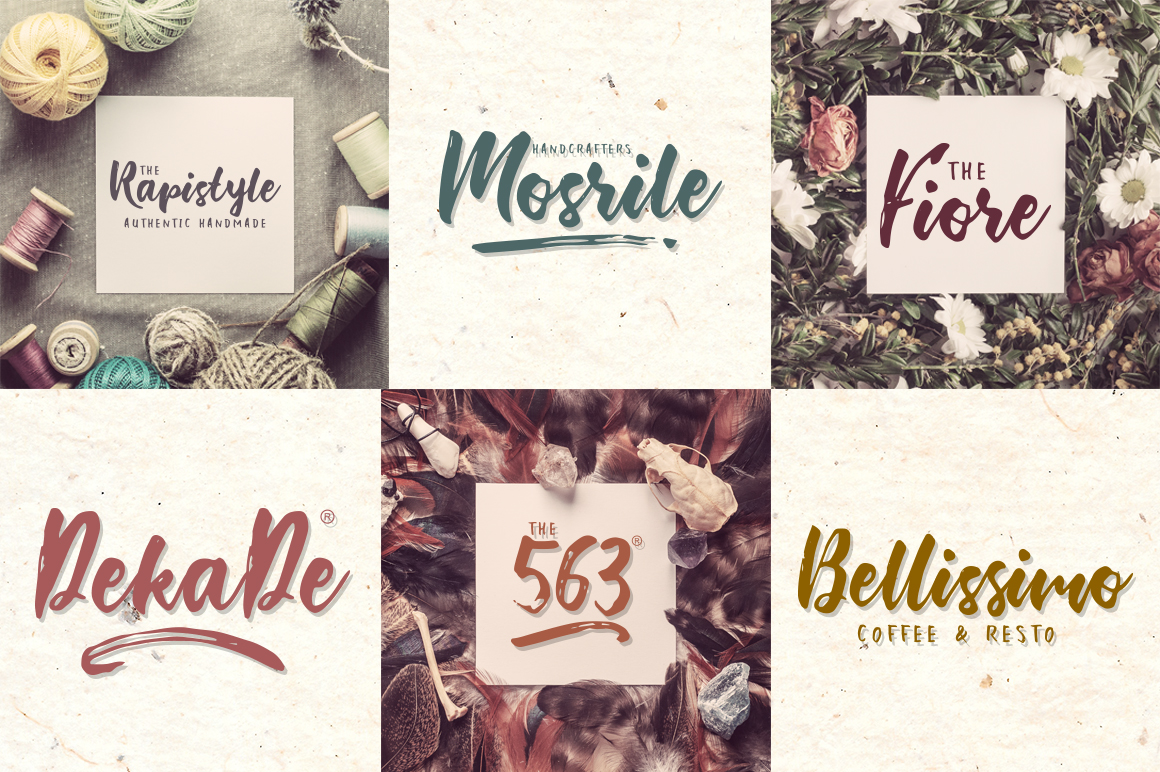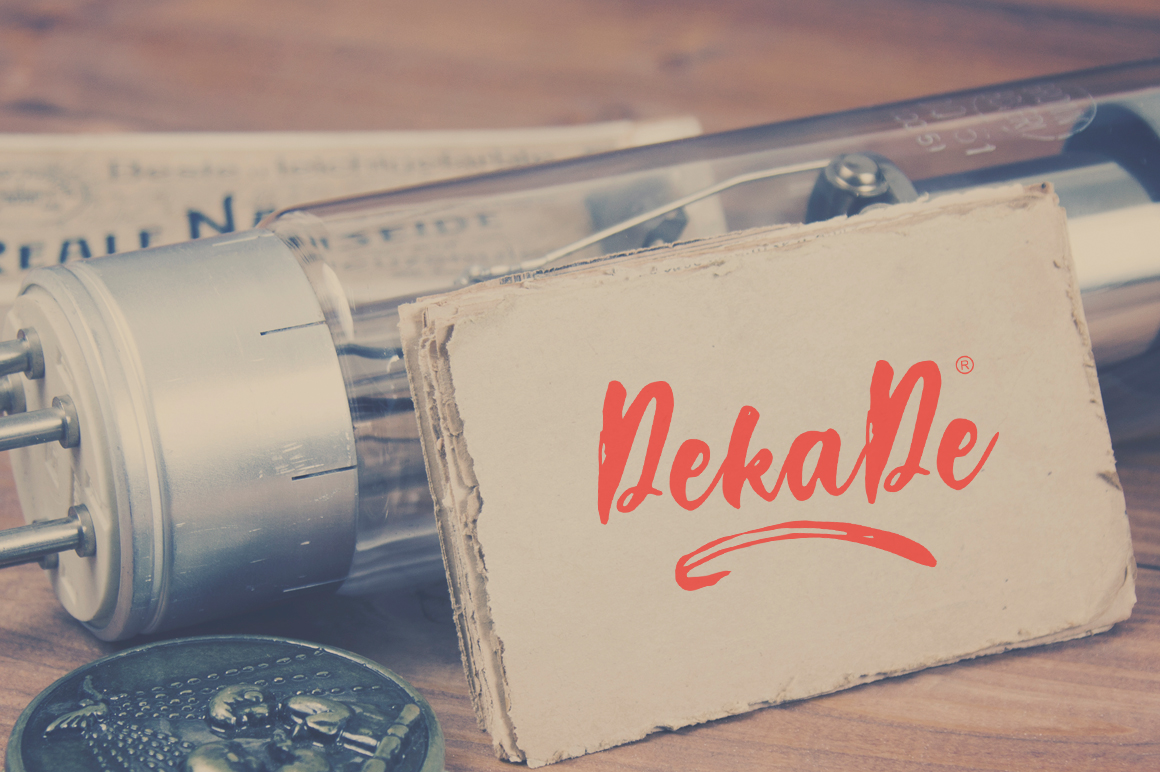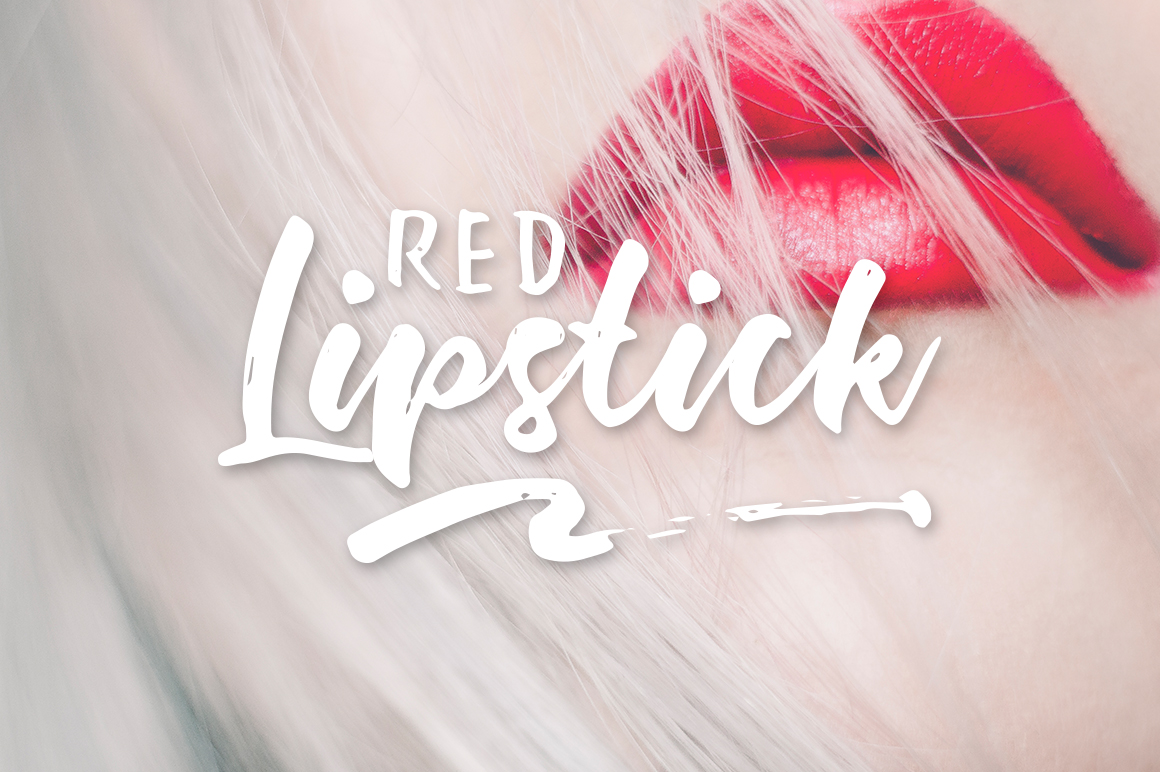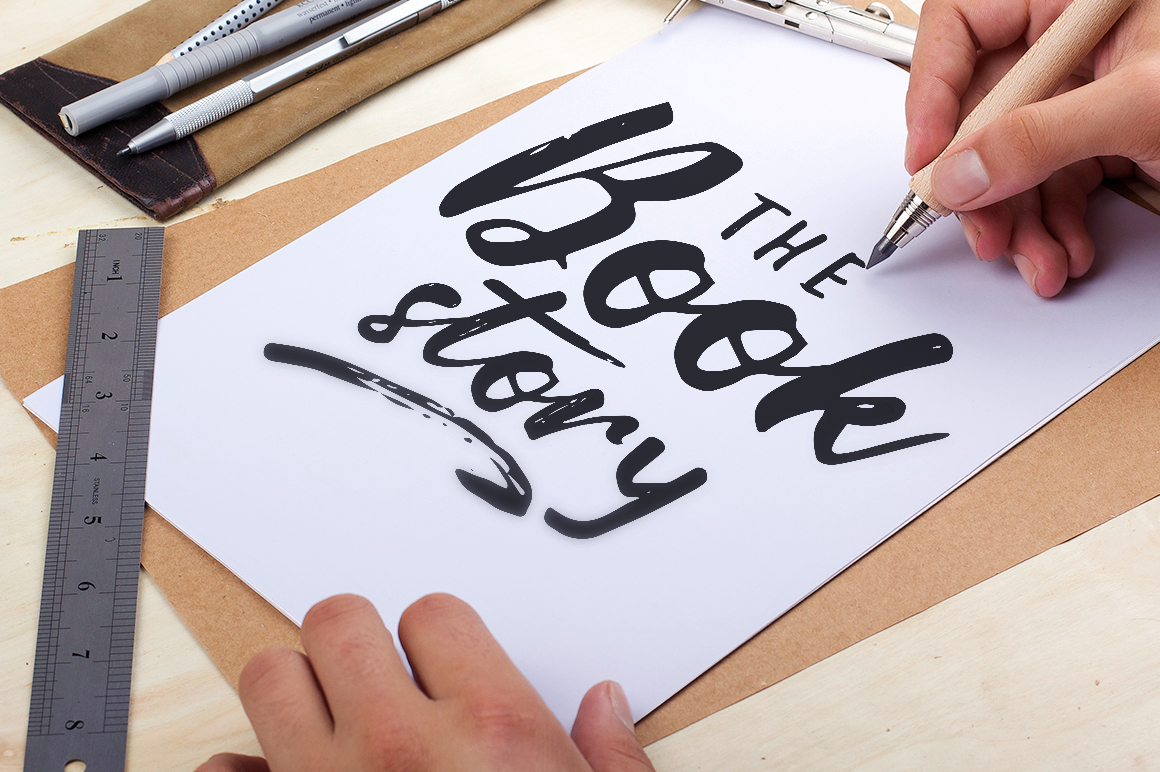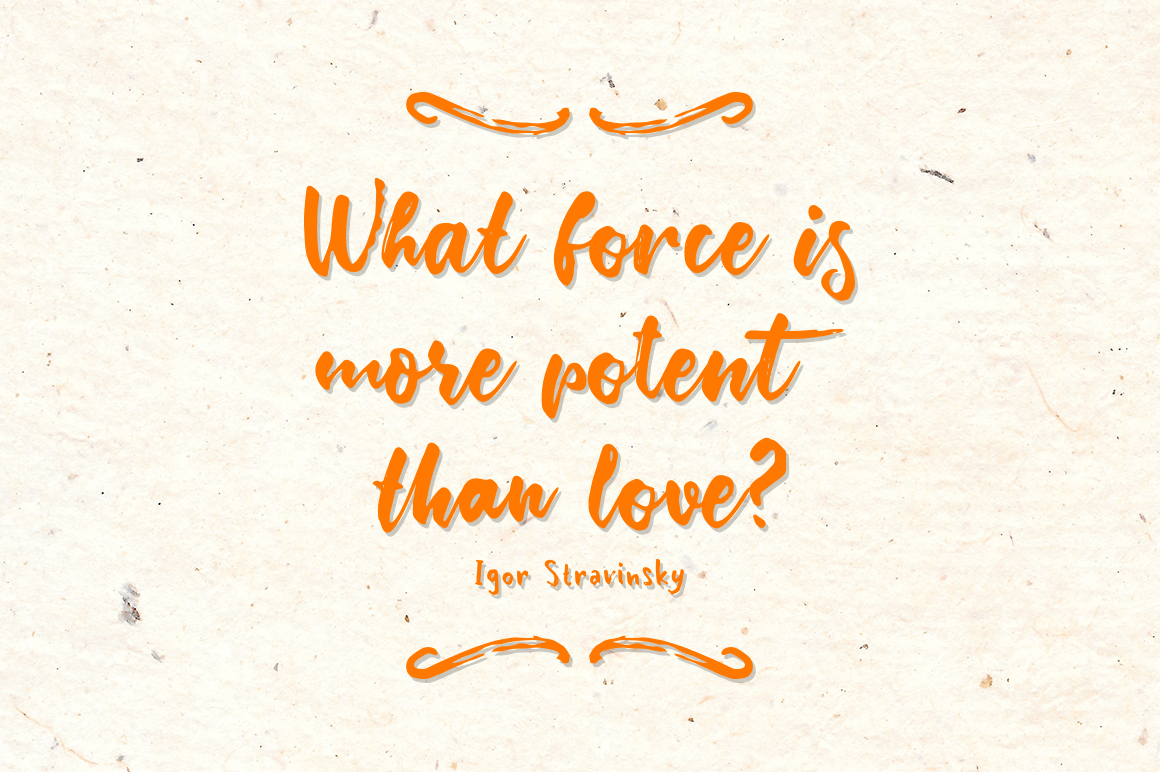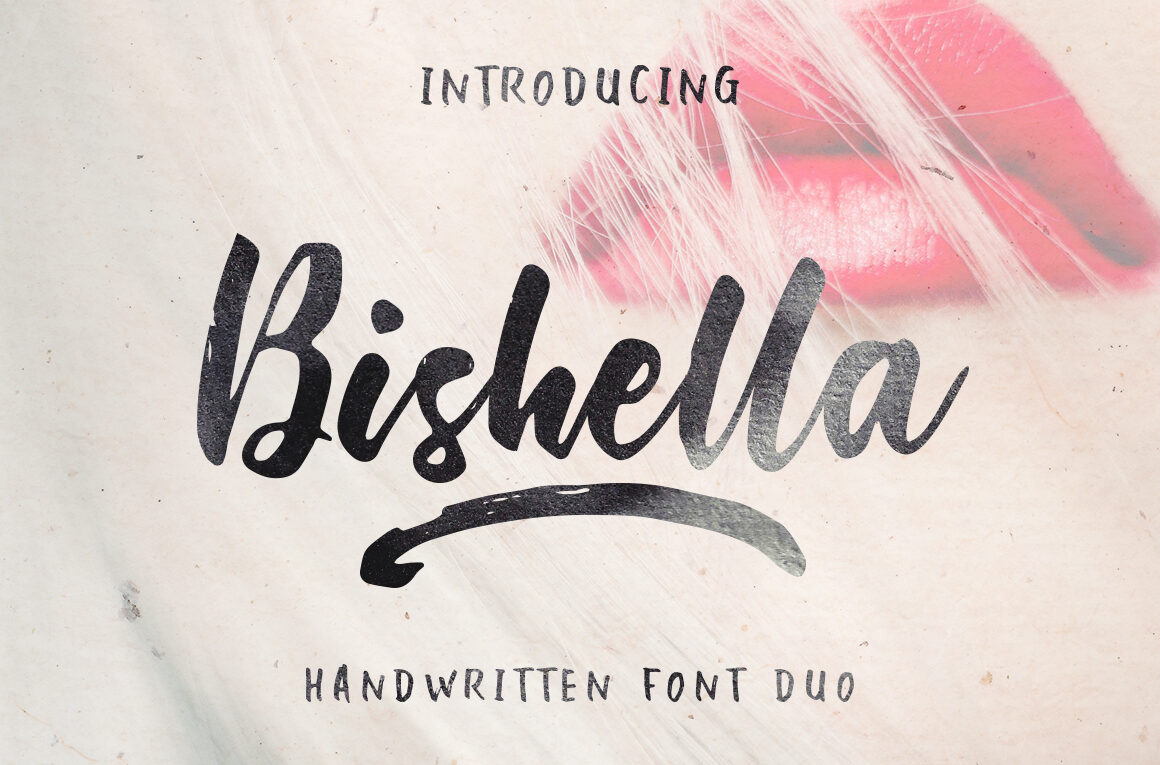
Bishella Font: Elevate Your Designs with a Stunning Font Duo
Are you tired of using the same old fonts in your designs? Look no further than Bishella, a beautiful font duo that’s perfect for giving your projects a cohesive feel. With its refined yet relaxed aesthetic, Bishella is ideal for designers and crafters who want to add a touch of elegance to their work.
What is Bishella Font?
Bishella is a font duo that consists of two complementary fonts, designed to work together seamlessly. This stunning font combination is perfect for creating typographic design projects that exude sophistication and style. Whether you’re working on a logo, branding project, or marketing materials, Bishella is the perfect choice.
Key Features of Bishella Font
- Character Alternates: Bishella comes with character alternates, which allow you to create unique and refined typographic designs. With character alternates, you can mix and match different letterforms to add visual interest to your text.
- Cohesive Feel: The two fonts in the Bishella duo are designed to work together, giving your designs a cohesive feel that’s both stylish and professional.
- Refined yet Relaxed: Bishella’s refined yet relaxed aesthetic makes it perfect for a wide range of design projects, from elegant logos to casual marketing materials.
Why Choose Bishella Font?
There are many reasons why Bishella font stands out from the crowd. Here are just a few:
- Unique and Versatile: Bishella’s unique character alternates and versatile design make it perfect for a wide range of design projects.
- Time-Saving: With Bishella, you can create professional-looking designs in no time. The font duo is designed to work together seamlessly, saving you time and effort.
- Elegant and Sophisticated: Bishella adds a touch of elegance and sophistication to any design project, making it perfect for designers and crafters who want to create high-end designs.
How to Use Bishella Font
Using Bishella font is easy. Here are a few tips to get you started:
- Pair the Fonts: Pair the two fonts in the Bishella duo to create a cohesive look that’s both stylish and professional.
- Experiment with Character Alternates: Don’t be afraid to experiment with Bishella’s character alternates. This feature allows you to add visual interest to your text and create unique typographic designs.
- Use in a Variety of Projects: Bishella is versatile enough to be used in a wide range of design projects, from logos and branding materials to marketing materials and more.
In conclusion, Bishella font is a stunning font duo that’s perfect for designers and crafters who want to add a touch of elegance and sophistication to their work. With its refined yet relaxed aesthetic, character alternates, and cohesive feel, Bishella is the perfect choice for any design project. Whether you’re working on a logo, branding project, or marketing materials, Bishella is sure to elevate your designs to the next level.
Here are a few tips for designers and crafters who want to get the most out of Bishella font:
- Experiment with Different Font Sizes: Experiment with different font sizes to create visual interest and add depth to your designs.
- Use Bishella in Combination with Other Fonts: Don’t be afraid to use Bishella in combination with other fonts. This can add visual interest and create a unique look that’s all your own.
- Take Advantage of Character Alternates: Take advantage of Bishella’s character alternates to add a touch of elegance and sophistication to your designs.